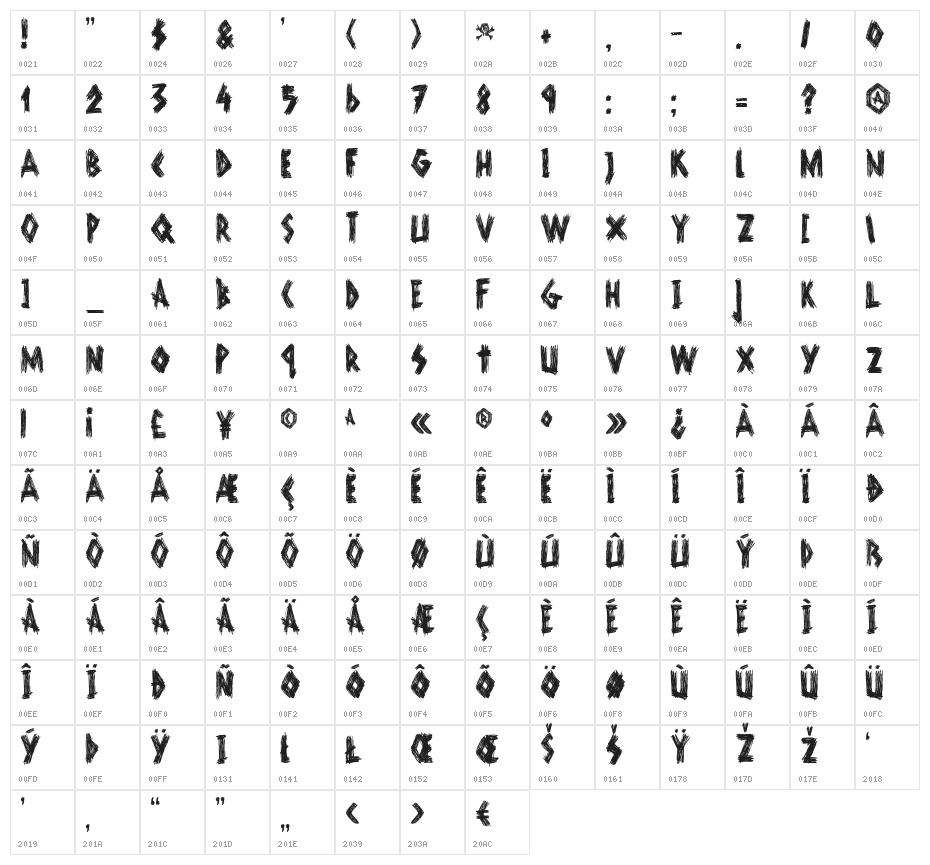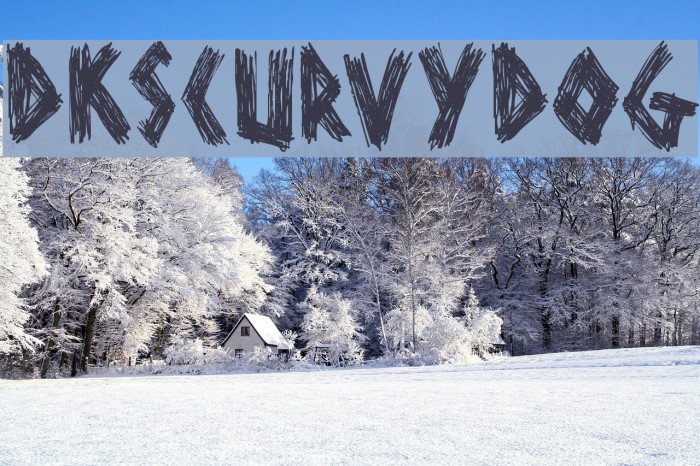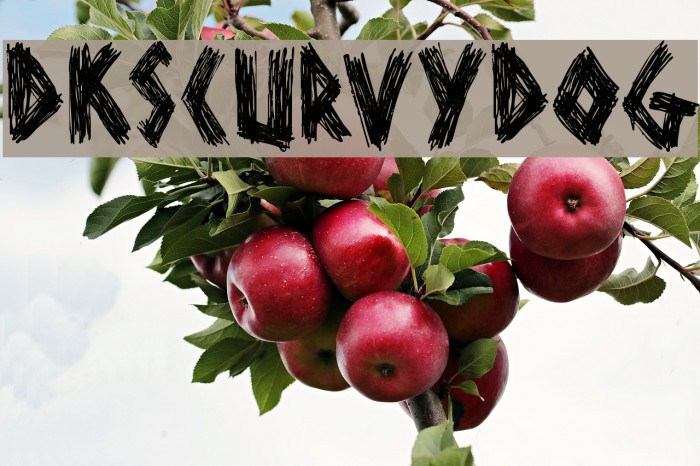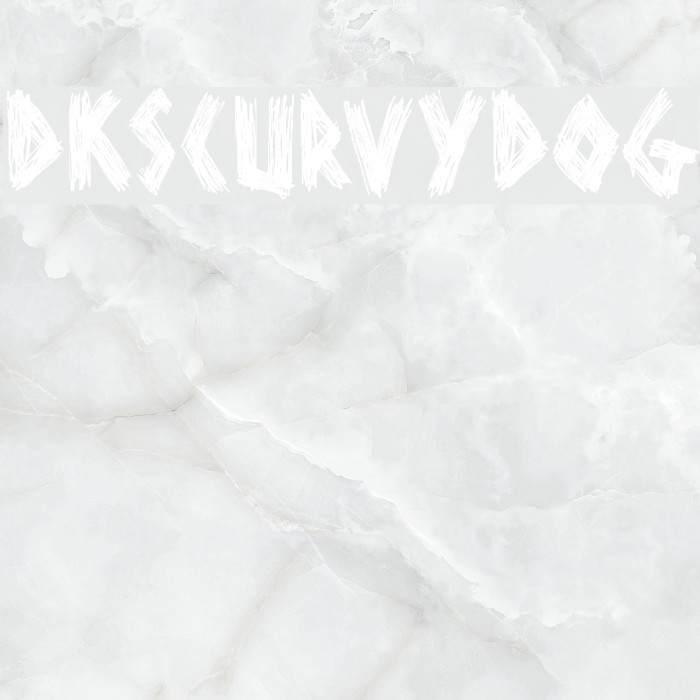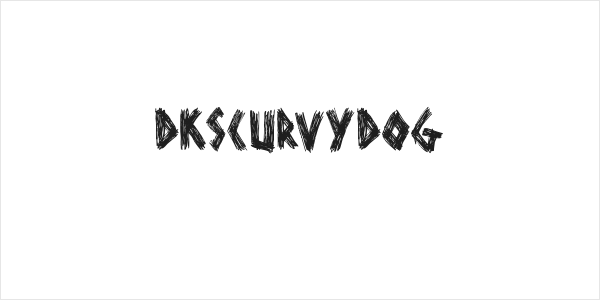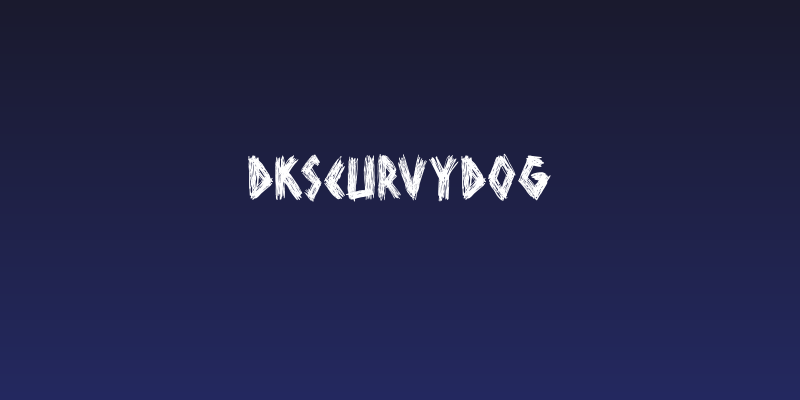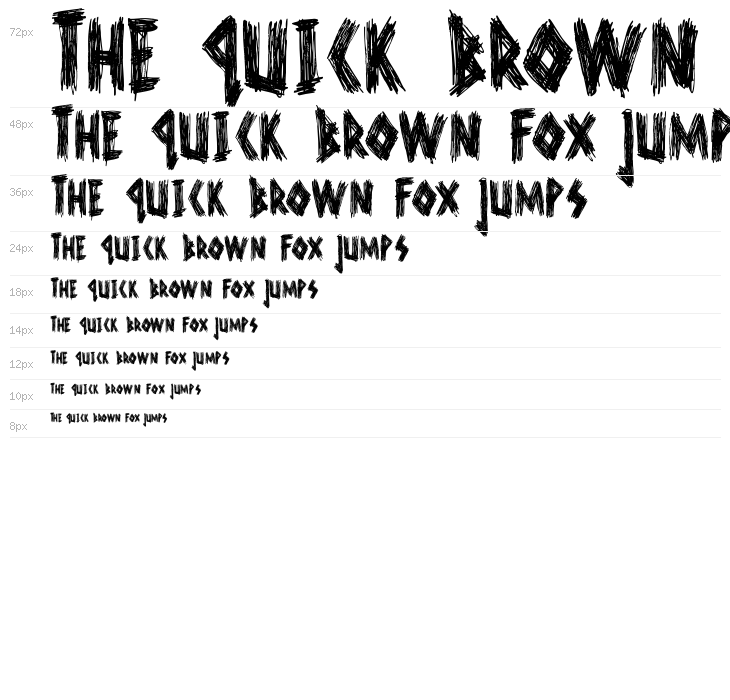
DKScurvyDog Font
DKScurvyDog Description
This font features a rugged, hand-drawn style that evokes a sense of adventure and edginess. The characters are bold and heavily textured, resembling rough brush strokes or scratches. Each letter has a unique, irregular form, adding to the font's dynamic and energetic appearance. The uppercase and lowercase letters maintain a consistent style, with jagged edges and varying line thicknesses. Numbers and special characters follow the same aesthetic, making the font suitable for creative and unconventional designs. Its distinctive look is perfect for projects that require a bold statement.
| Use Case | Logos, Posters, Themed Events |
| Proposed Projects | Ideal for pirate-themed designs, adventure games, posters, and edgy branding projects. |